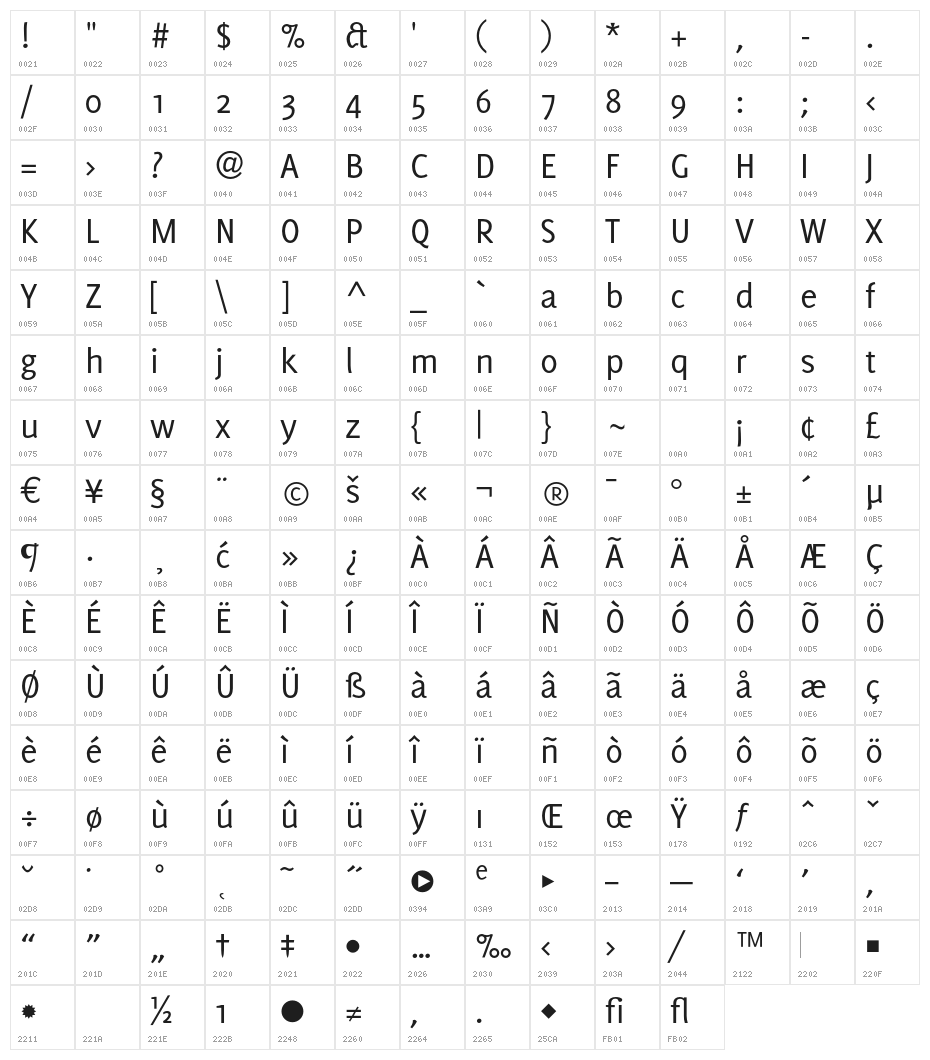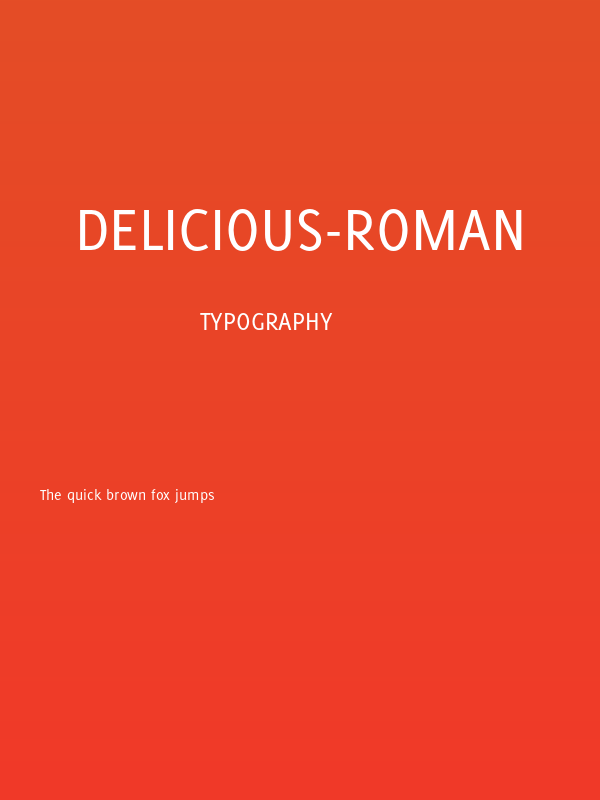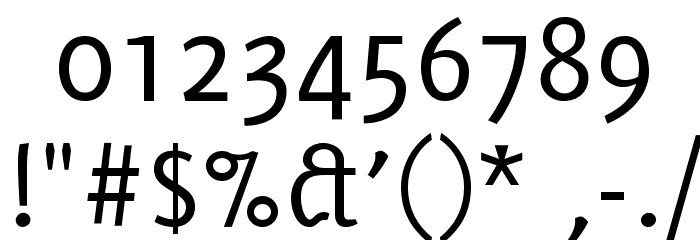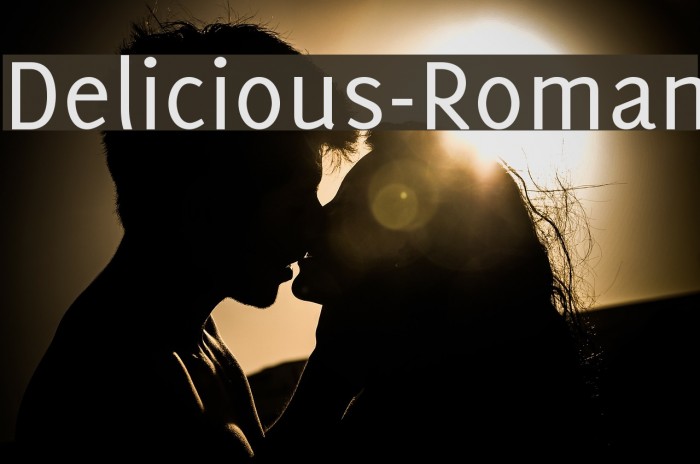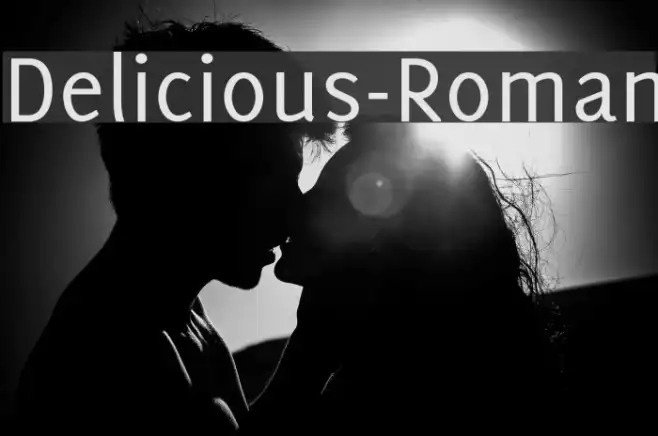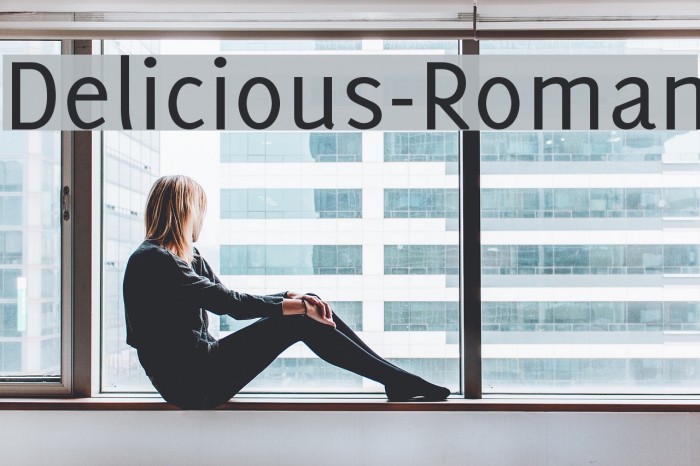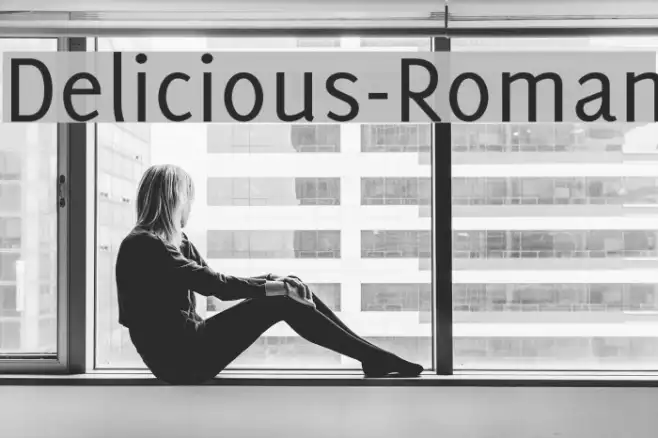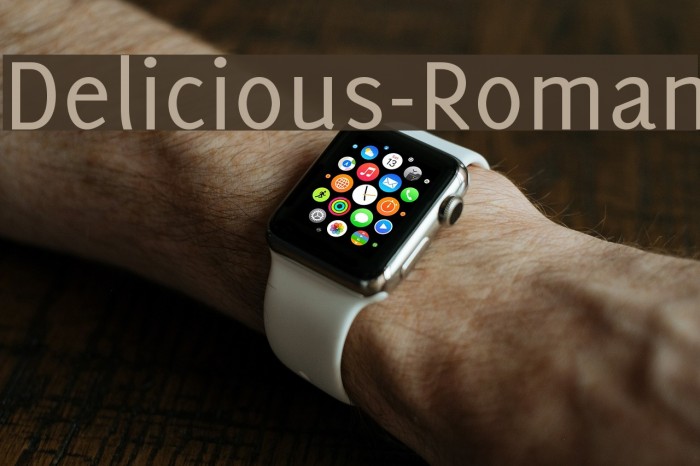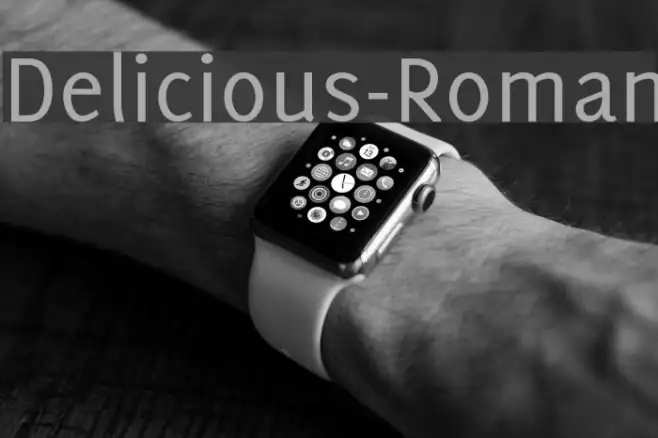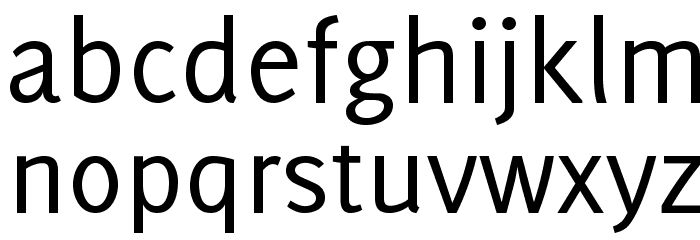
Delicious-Roman Font
Delicious-Roman Description
This font features a clean and modern sans-serif design with a subtle elegance. The characters are well-proportioned, offering a harmonious balance between straight lines and gentle curves. The uppercase letters are bold and assertive, while the lowercase letters maintain a friendly and approachable appearance. The numerals are clear and easy to read, making them suitable for various applications. Special characters are thoughtfully designed, ensuring consistency throughout the typeface. This font's simplicity and versatility make it an excellent choice for both digital and print media.